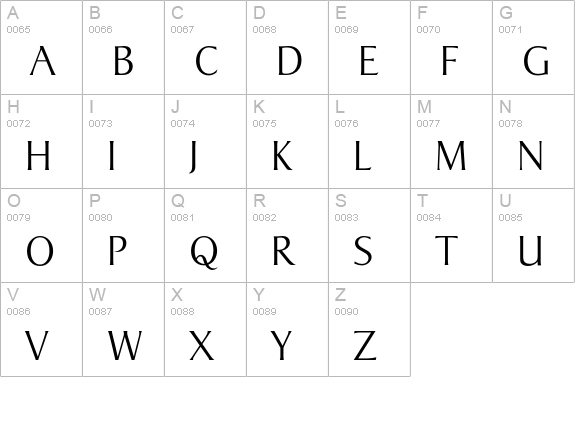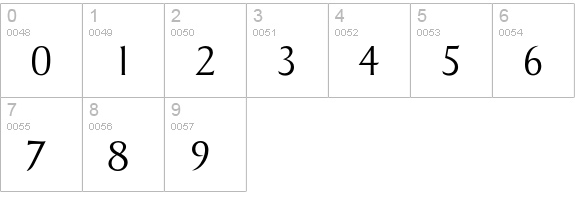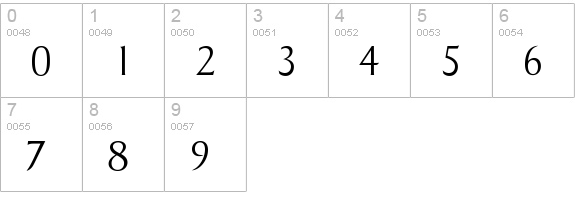
Introducing Sigvar-Xlight, a captivating font that effortlessly combines elegance with modernity. With its sleek and delicate letterforms, this typeface exudes sophistication and grace, making it perfect for a variety of design projects. Sigvar-Xlight is meticulously crafted to ensure utmost legibility and clarity, even at small sizes. Its thin strokes and subtle curves create a harmonious balance, resulting in a font that is both pleasing to the eye and easy to read. Whether used for headlines, body text, or branding materials, Sigvar-Xlight adds a touch of refinement that elevates any project to the next level. One of the most appealing aspects of Sigvar-Xlight is its versatility. It seamlessly adapts to a wide range of design styles, from minimalist and contemporary to classic and timeless. This font effortlessly complements any aesthetic, making it a valuable asset for graphic designers, web developers, and creatives alike. And the best part? Sigvar-Xlight is free to download at FontsMarket.com. This means that you can enjoy the beauty and functionality of this remarkable font without any cost. Simply visit FontsMarket.com, find Sigvar-Xlight, and start incorporating its elegance into your design projects today. Don't miss out on this incredible opportunity to enhance your creations with the timeless allure of Sigvar-Xlight. Download it freely at FontsMarket.com and let your designs shine with unparalleled sophistication.